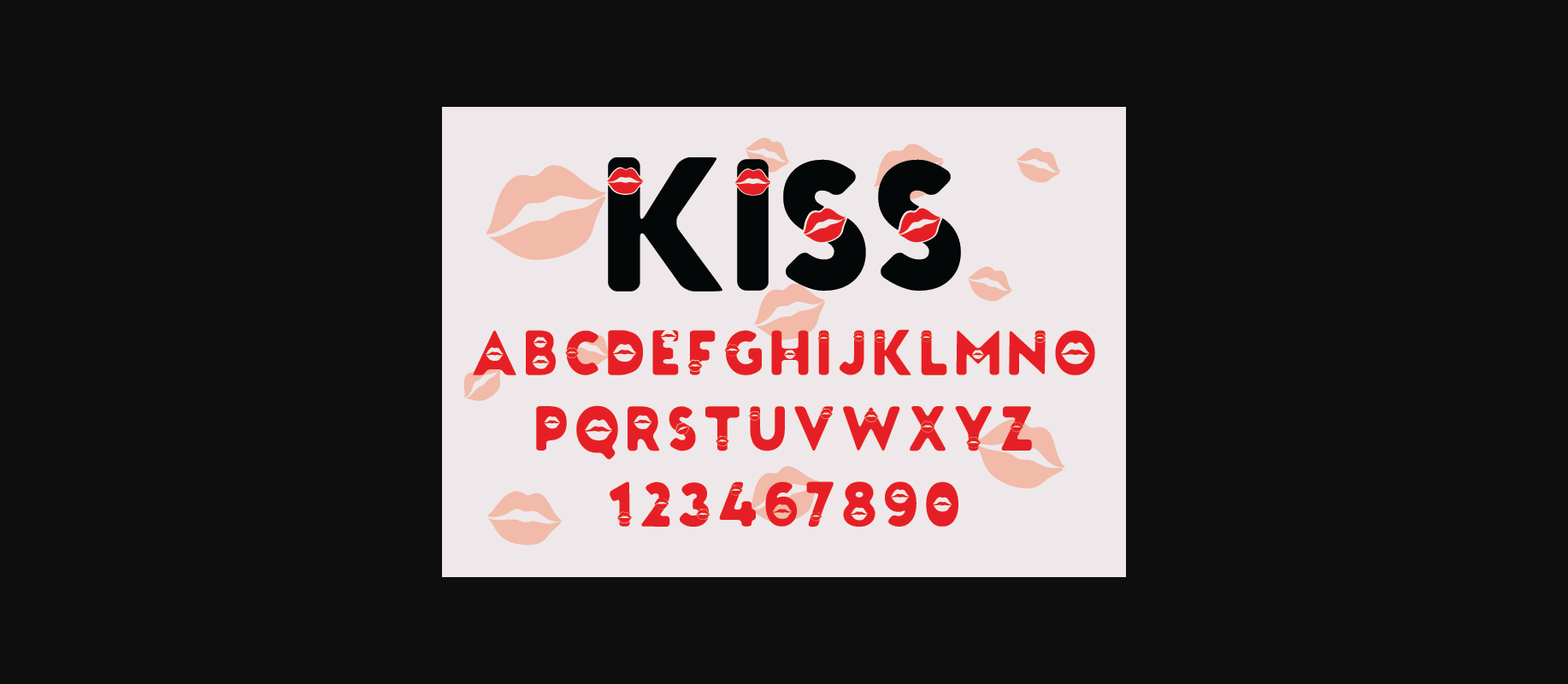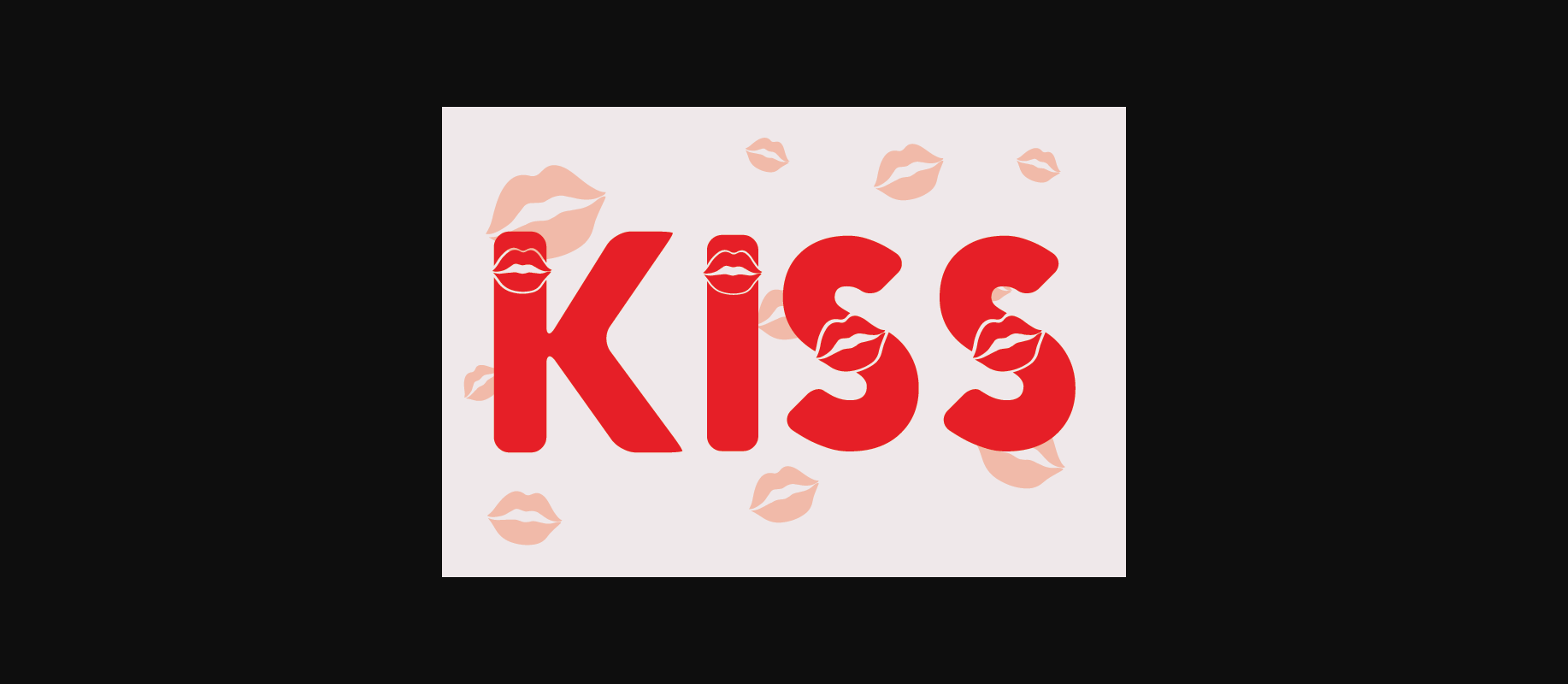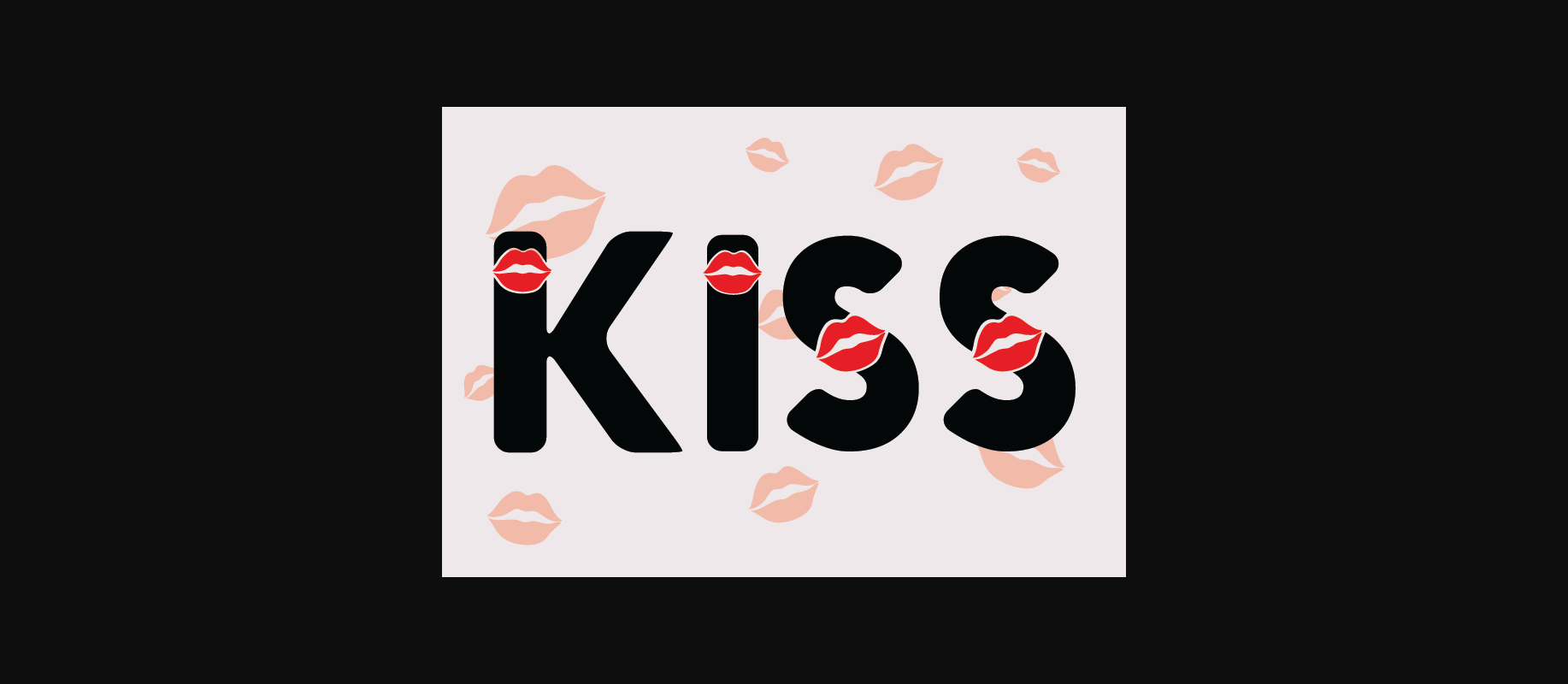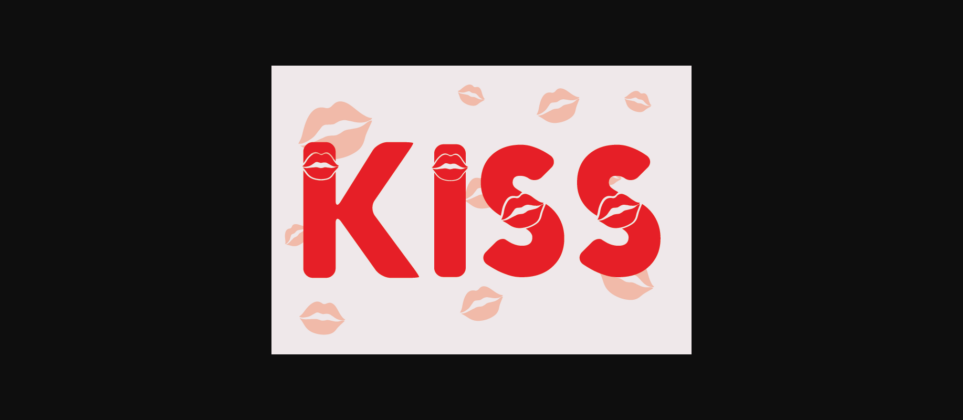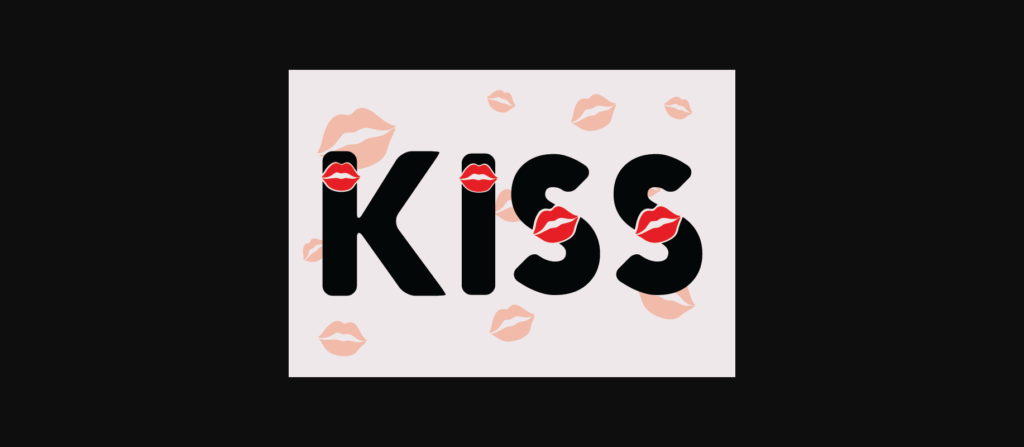
About Kiss Font
Kiss font is a delightful all-caps typeface that embodies the festive spirit of the love season. Each letter is beautifully enclosed within a lip symbol, creating a charming and decorative effect. Use this font to add a touch of yuletide magic to your lovely cards, banners, and seasonal designs.